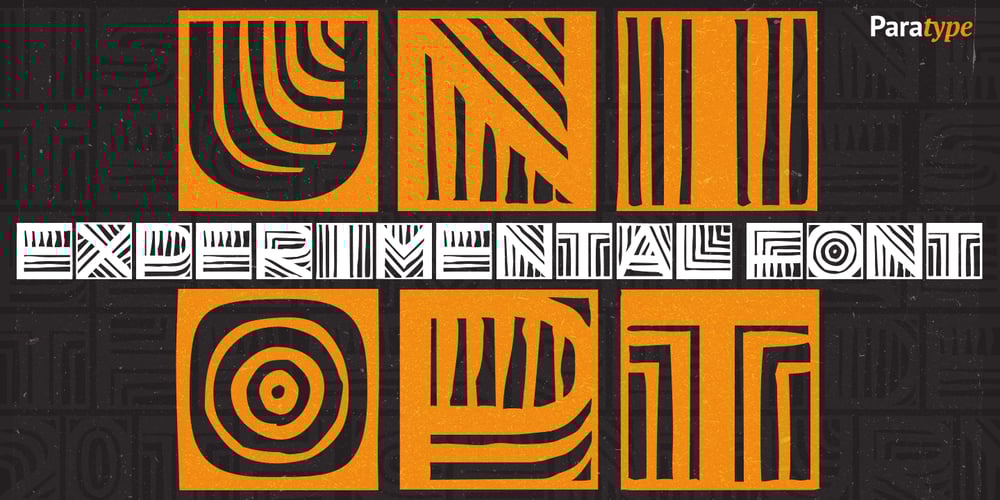
UniOpt Font Family was designed by Viktor Kharyk and published by ParaType. UniOpt contains 1 styles and family package options. An experimental font designed by Viktor Kharyk in Op Art style. UniOpt is based on free brush technique similar to experimental lettering of the early decades of the 20th century; for instance to ‘Graficheskaya Azbuka’ (‘Graphic ABC’) by Peter Miturich and works by Victor Vasareli. The face is legible even at small sizes and quite useful to an original display matter, initials and logos. The rigid double-wide structure allows to create complicated decorative works using vertical composition. Interesting that diacritical marks are also placed inside of character square fields and don’t destroy geometrical order. The decorative abilities of the font are increased by inverted versions of characters that may be used in different combinations including in color. The character set contains expanded Latin, Greek and Cyrillic ranges. UniOpt was awarded for type design excellence at TypeArt’05 Contest in Moscow. Licensed by ParaType in 2006.